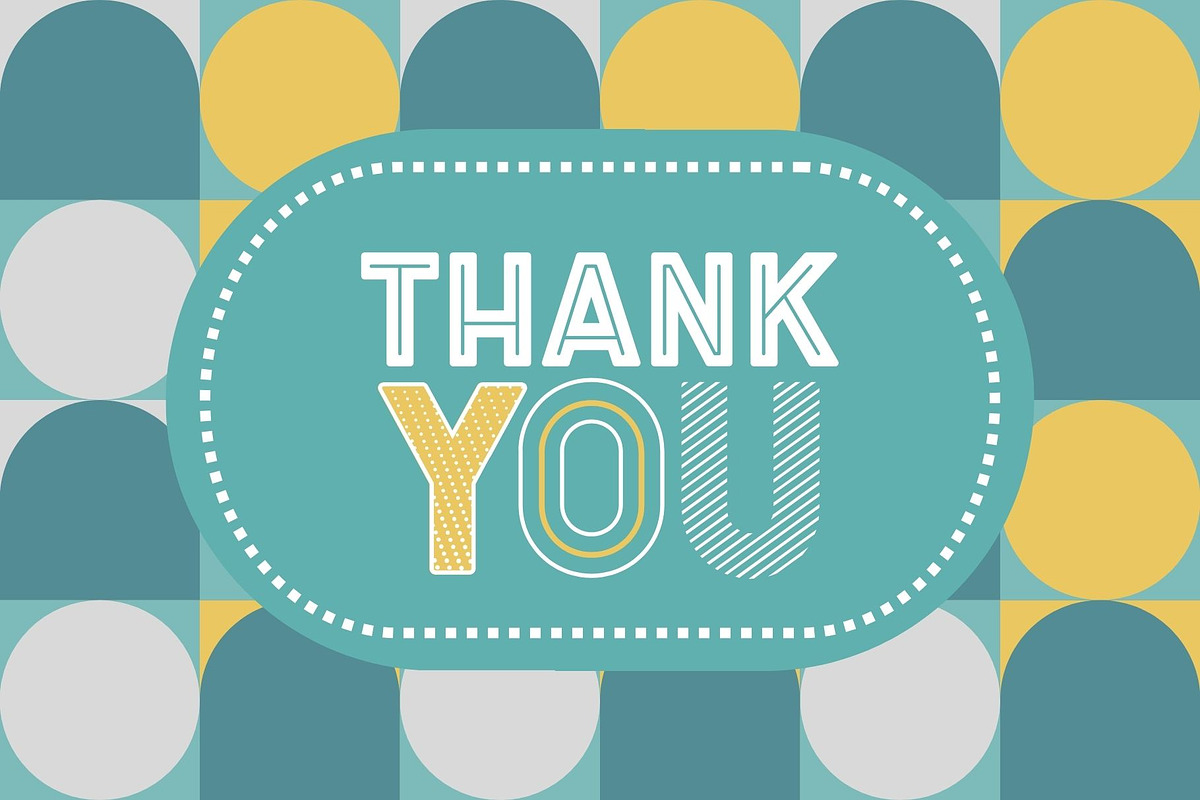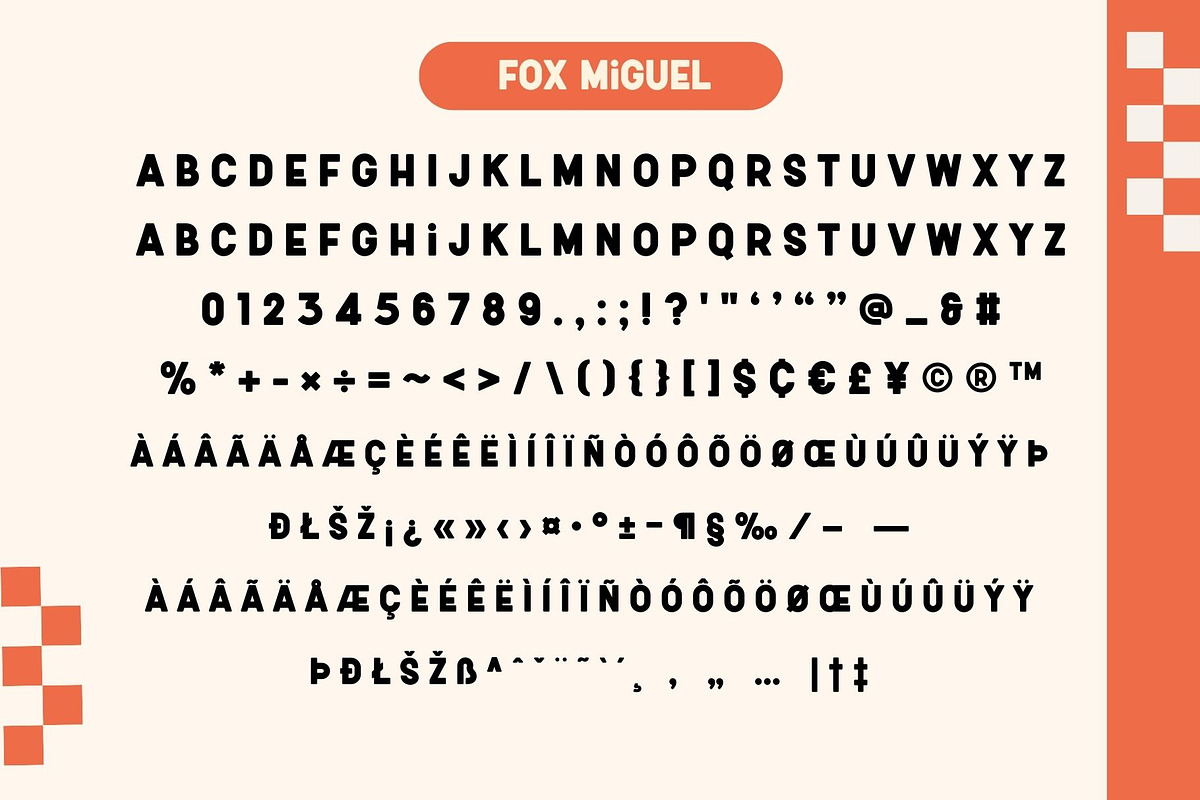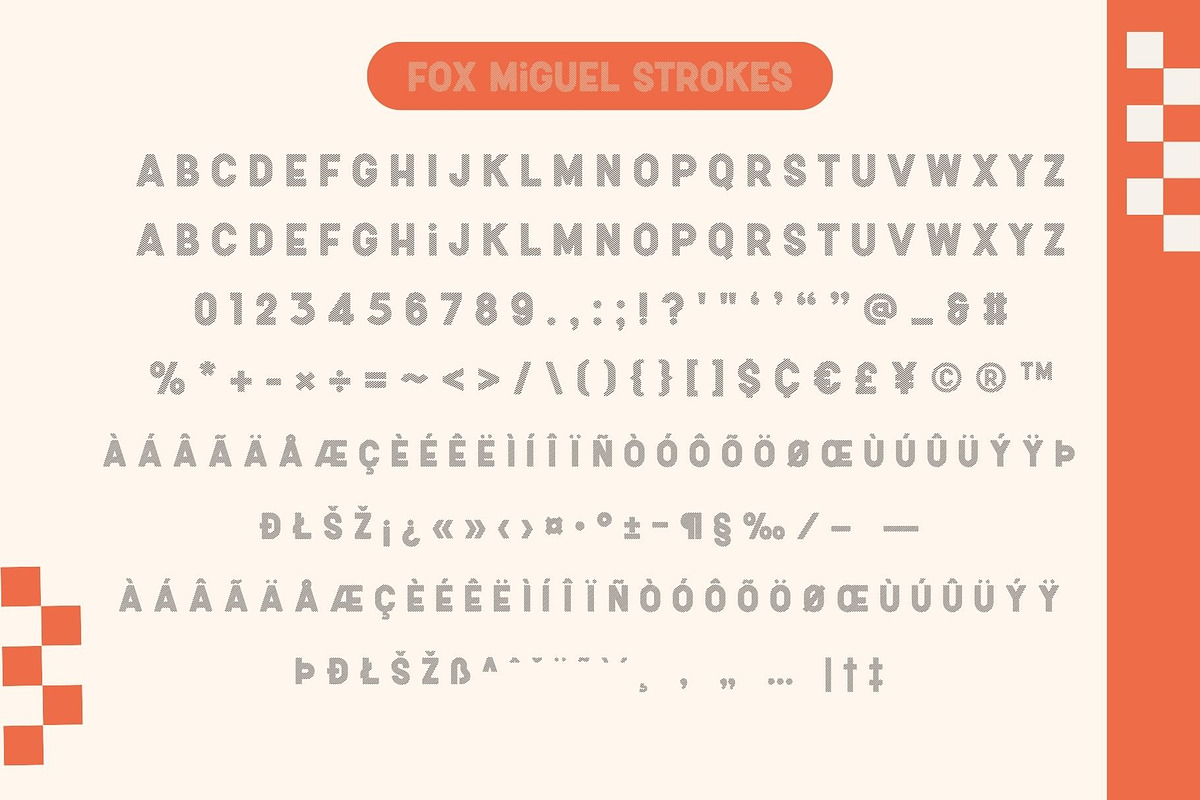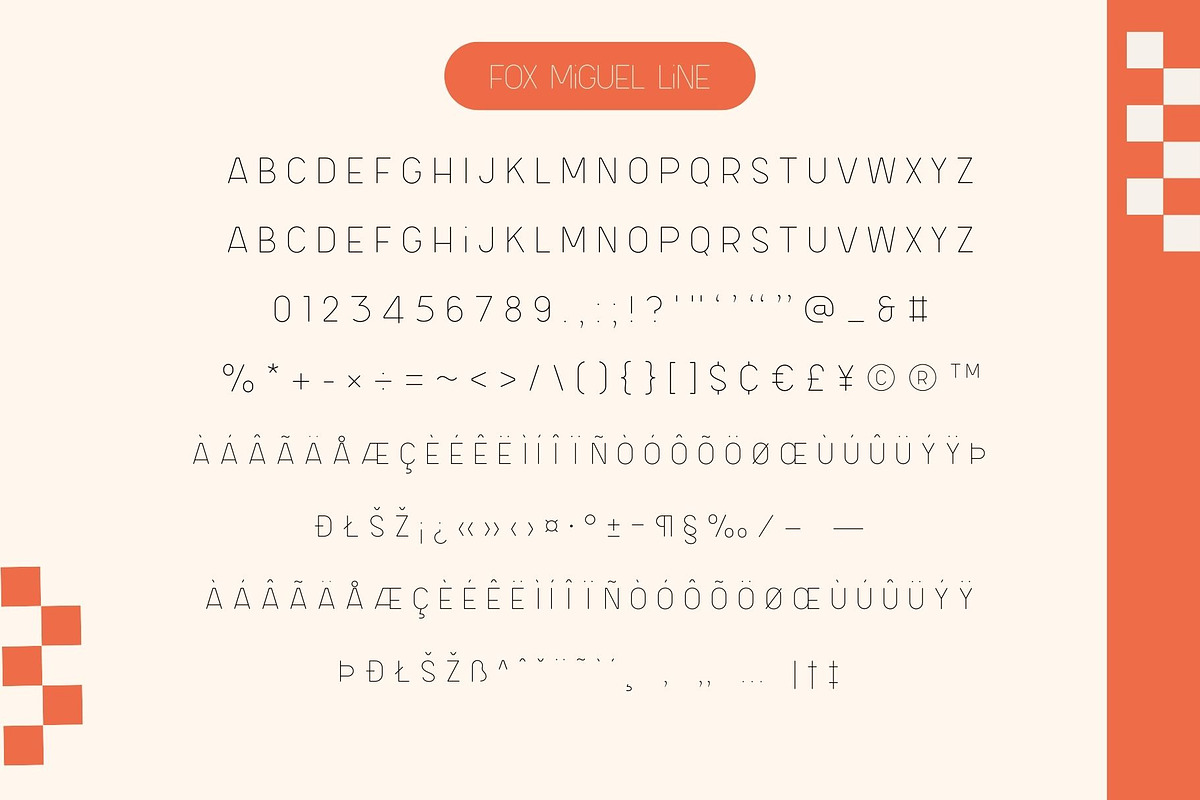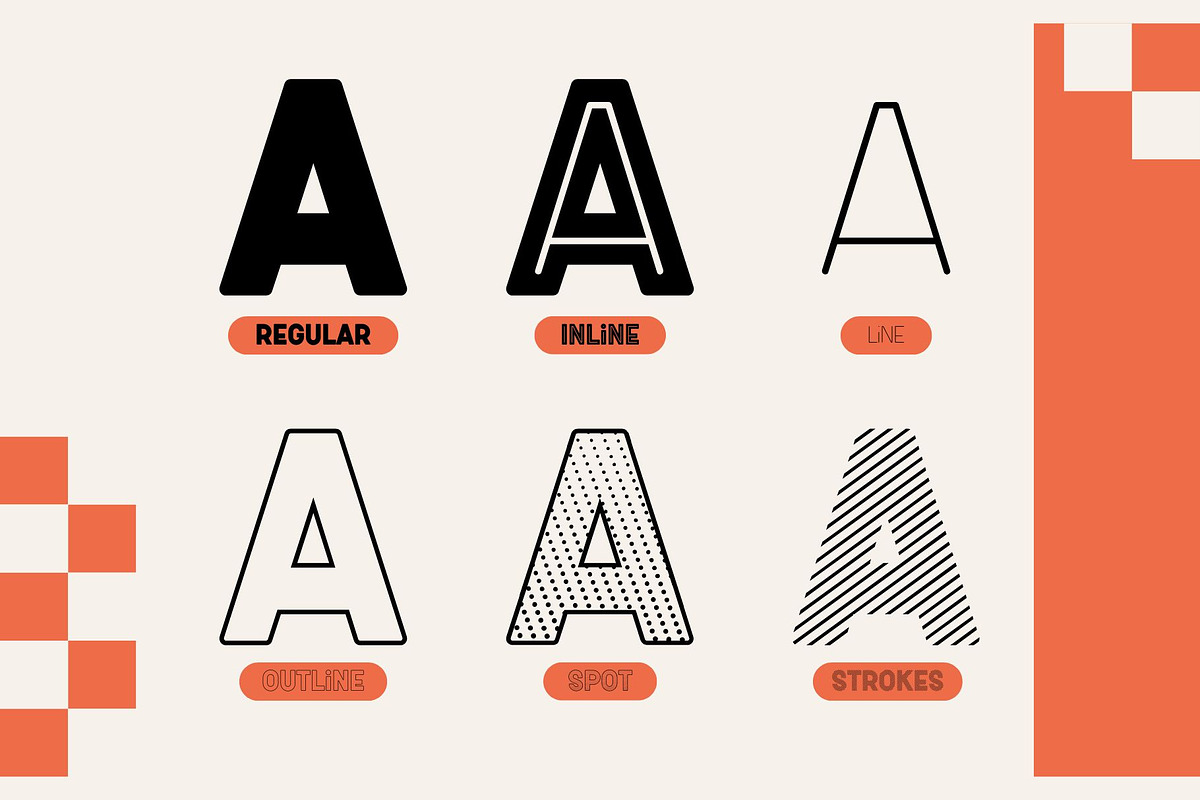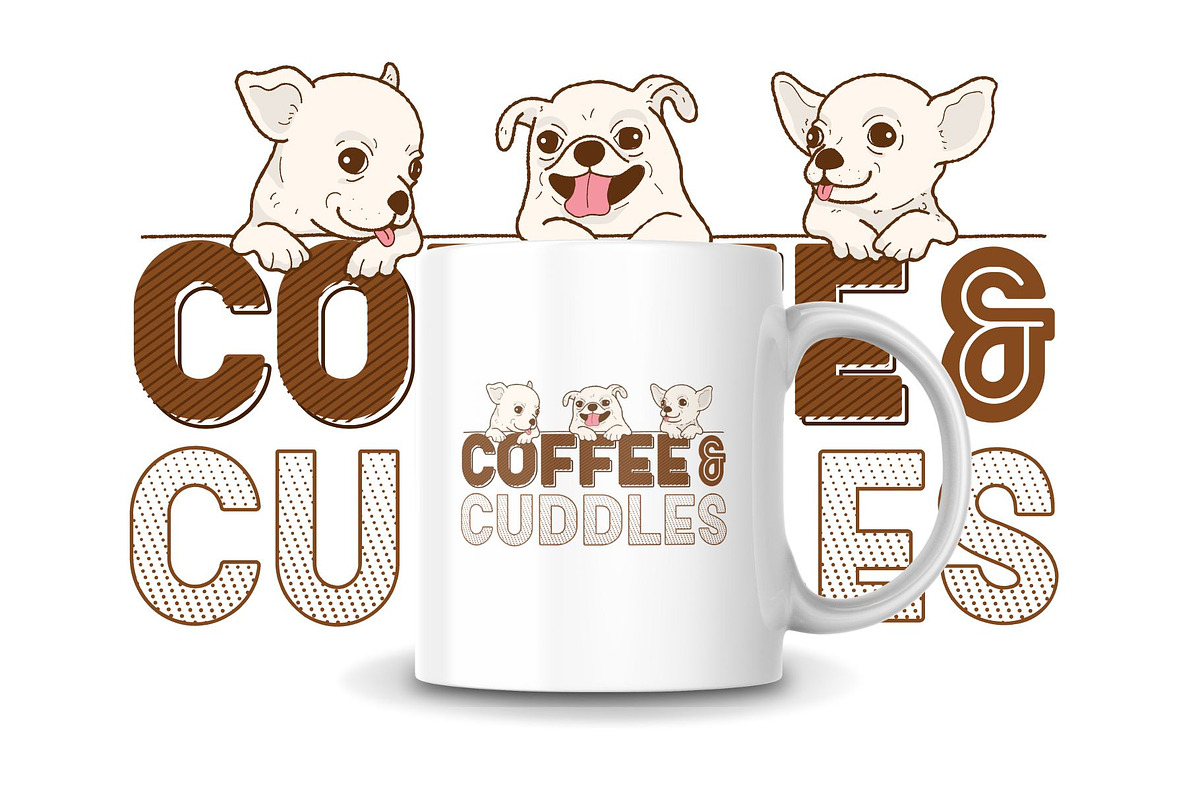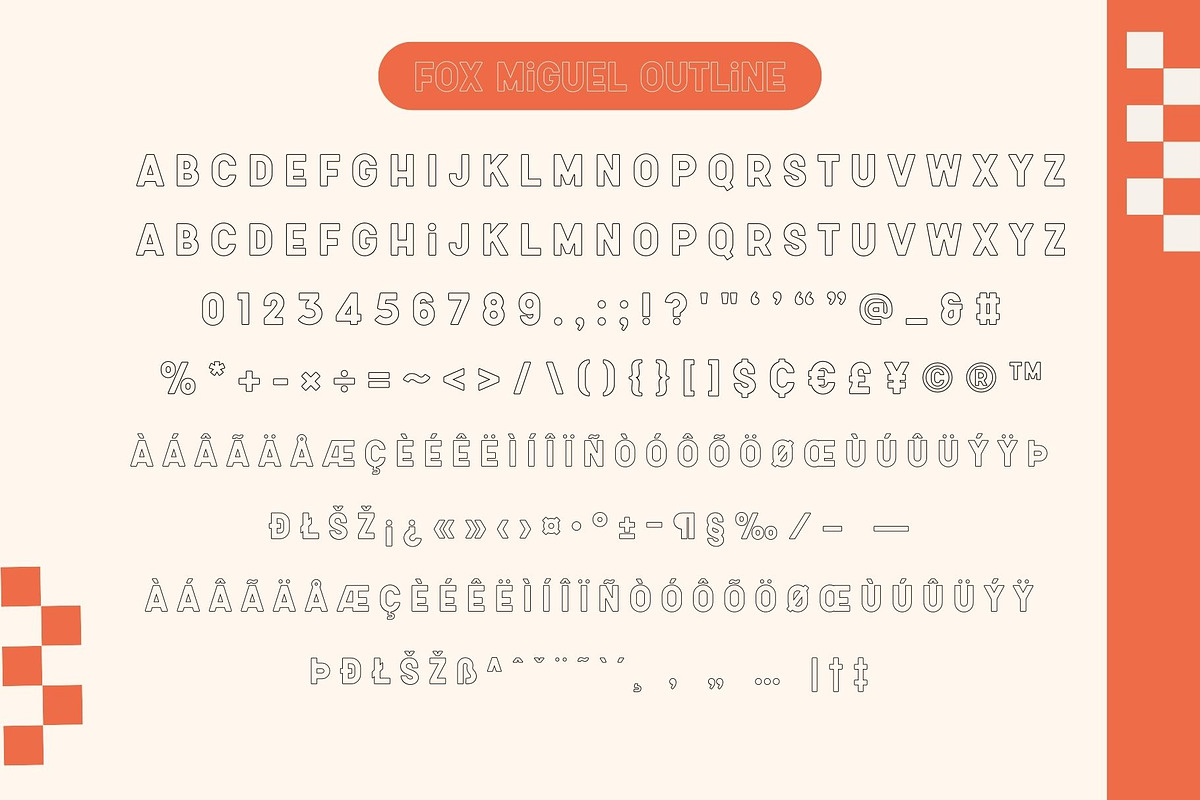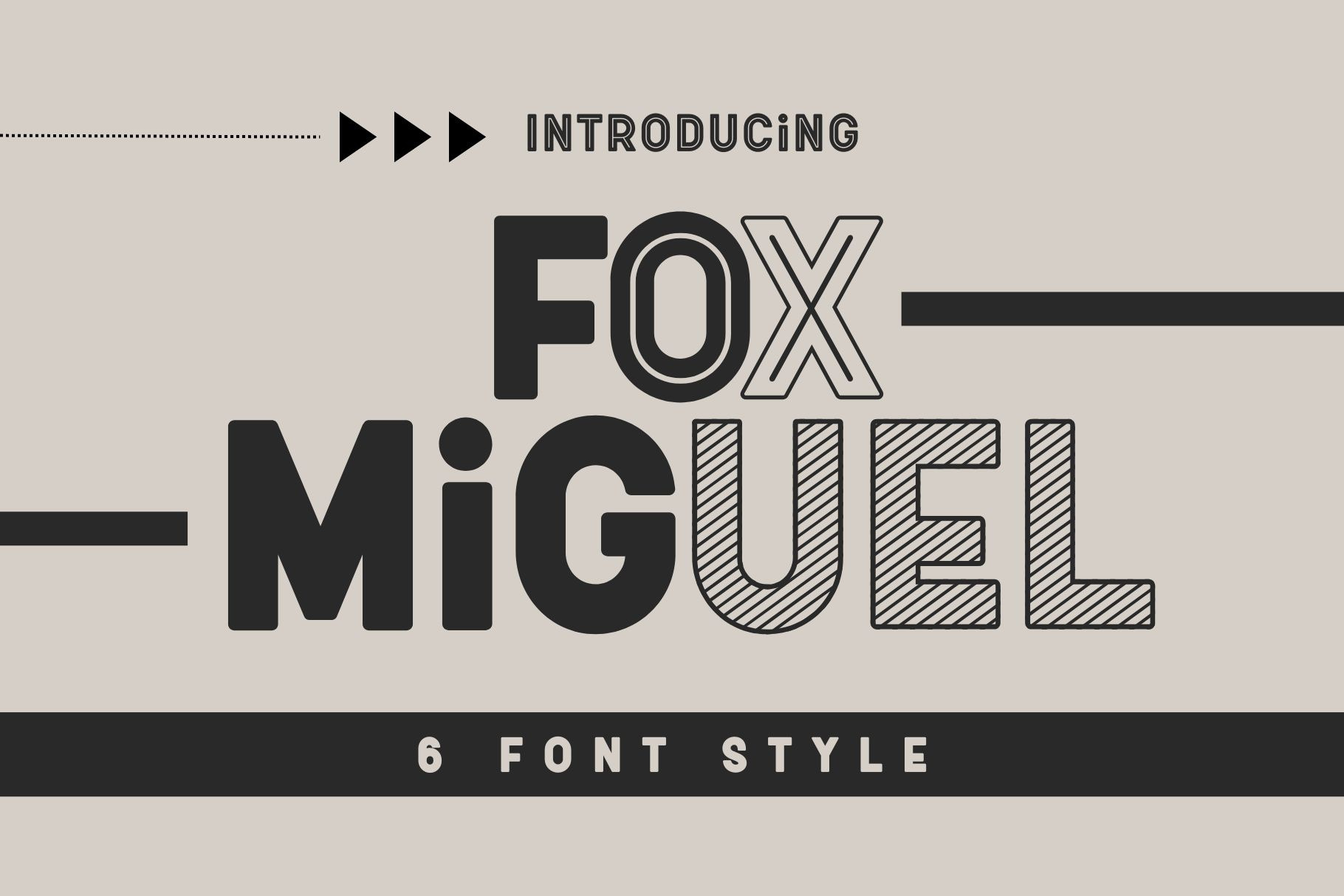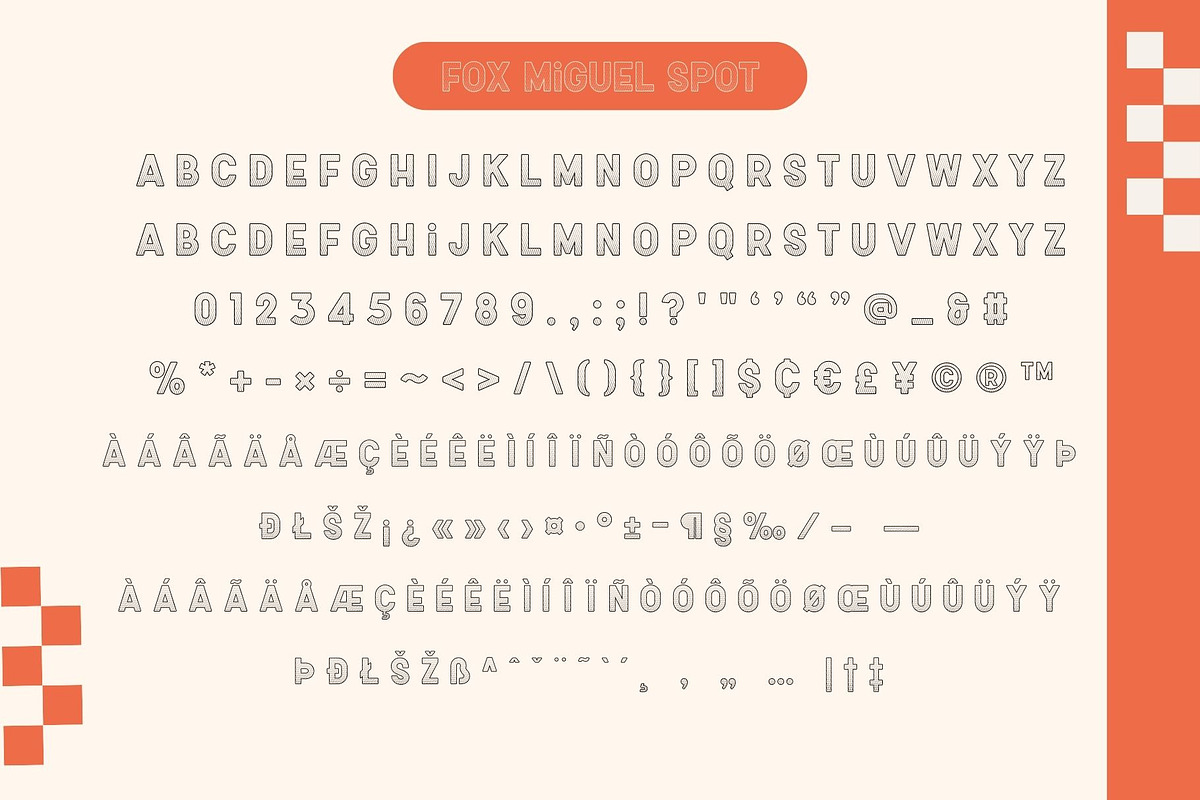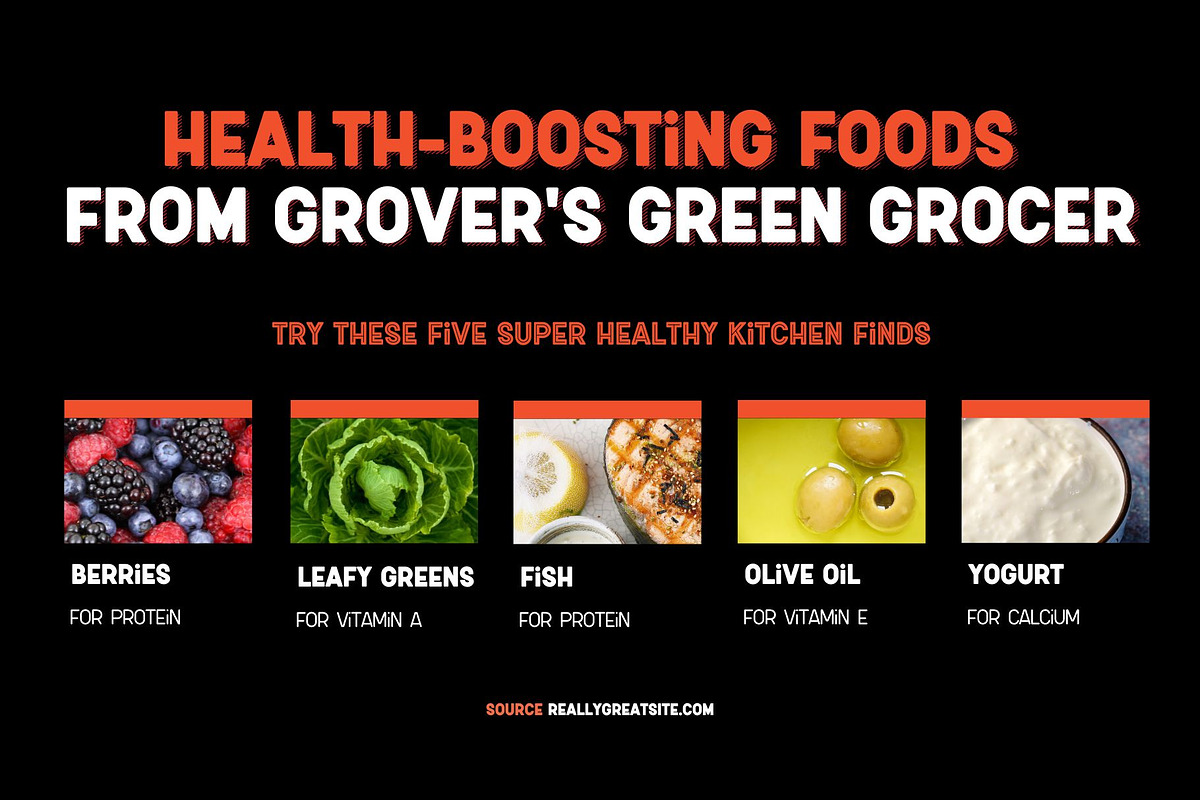
Fox Miguel 6 Fonts Style
Fox Miguel is 6 style font that cool and playful display font that adds a captivating and energetic touch to your designs. Perfect for use in publications, menus, logos, business cards, or even printed on t-shirts, these fonts exude uniqueness. Its main feature is its vibrant and expressive design, allowing you to create attention-grabbing headlines, t-shirt typography, banners, product labels, and more.